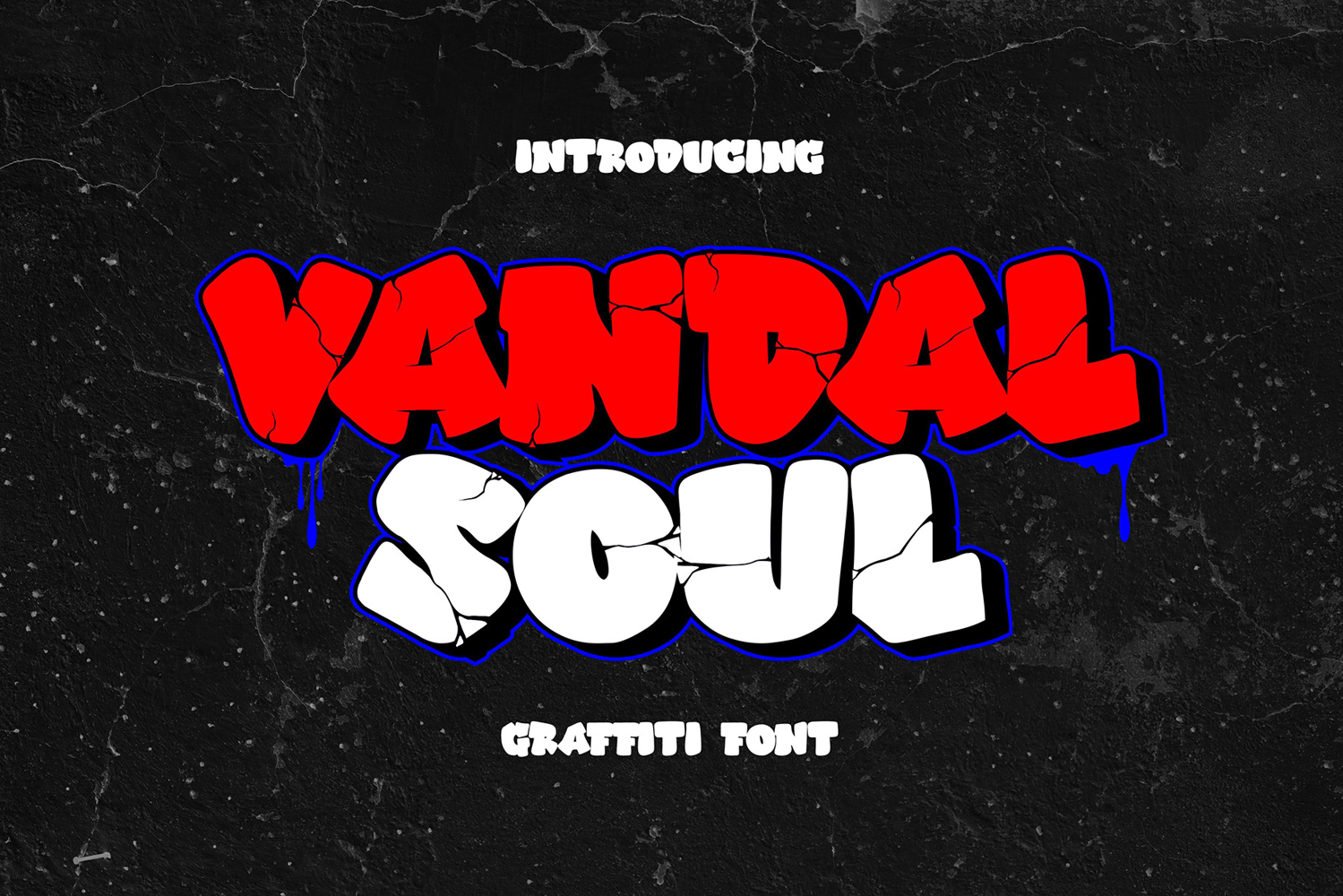
Vandal Soul - 3D Strong Graffiti Font
Vandal Soul is a bold and powerful 3D graffiti font that brings the raw energy of street art into your designs. Its thick, dynamic strokes and realistic depth create an authentic urban vibe, perfect for making a statement.
🖌 Raw & Edgy: Inspired by real graffiti culture, Vandal Soul delivers an aggressive yet stylish look, making it perfect for posters, branding, and digital artwork.
🔥 3D Depth & Bold Presence: The strong, layered design adds depth and intensity, making your text pop off the screen or page with a striking visual impact.
🎨 Versatile & Expressive: Whether you're working on streetwear, album covers, or promotional graphics, Vandal Soul adds a rebellious, artistic touch to any project.
Unleash the power of urban creativity with Vandal Soul and let your designs dominate the streets! 🚀🎨